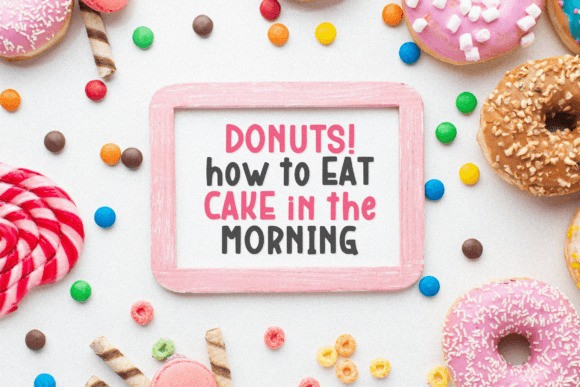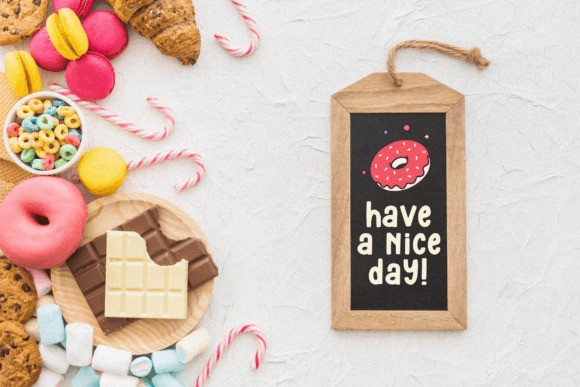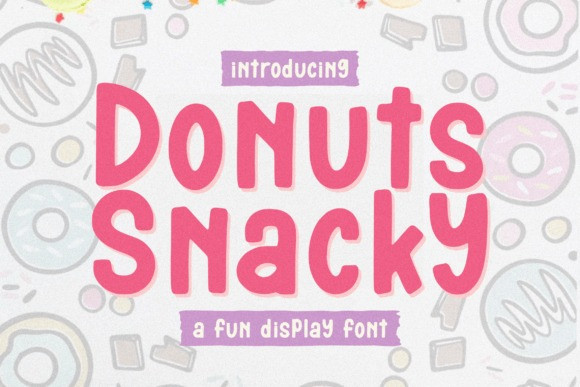
Donuts Snacky Font
Donuts Snacky Display Font is a Fun Display Font
Donuts Snacky is perfect for product packaging, branding project, magazines, social media, weddings, or just used to express words above the background.